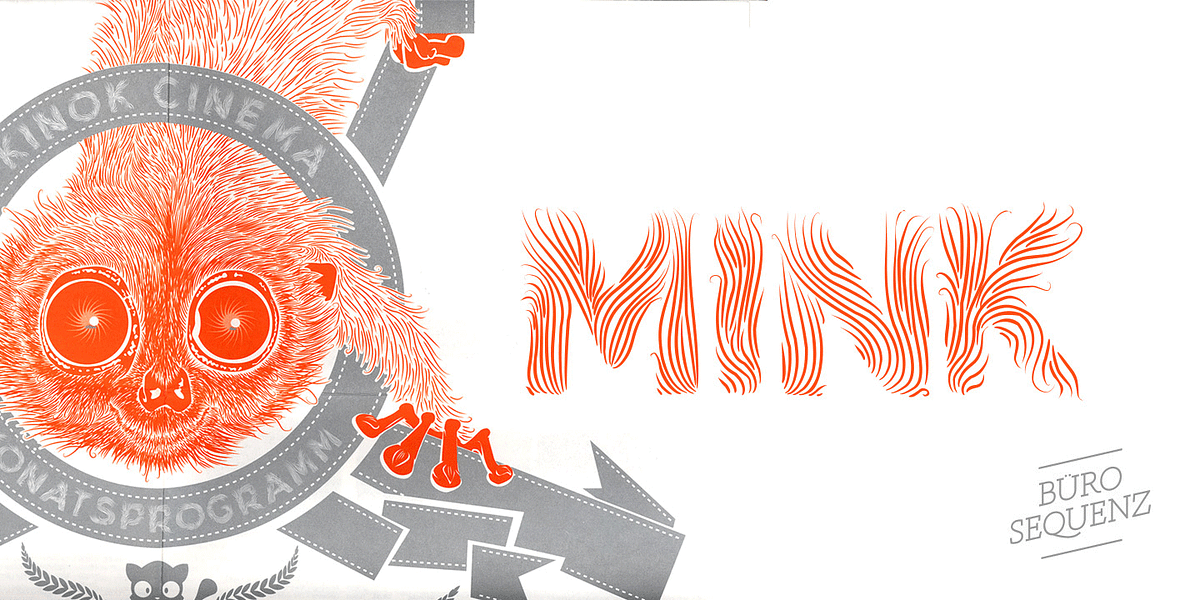
Mink
Mink is a playful geometric display font designed to evoke a sense of furriness. Its textured appearance and all-caps style make it suitable for projects related to animals, nature, or fashion incorporating faux fur.